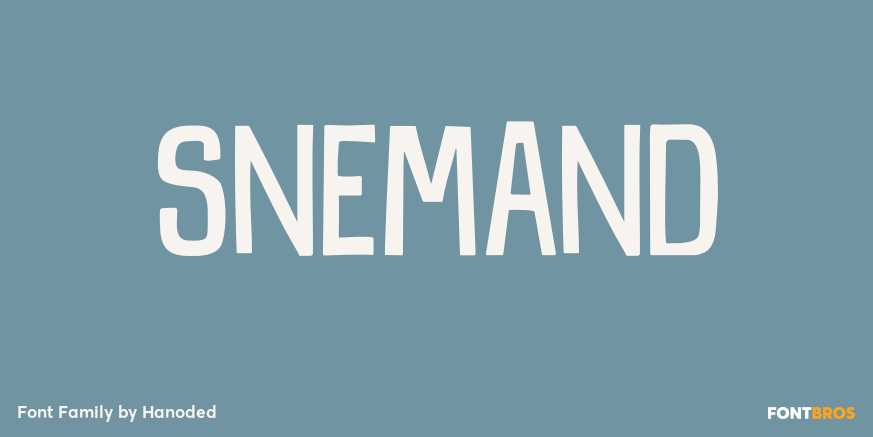
Snemand
About Snemand
Snemand, in Danish, means Snowman. Quite appropriate for the last month of the year! The font is all caps, but upper and lower case letters can be interchanged and it includes alternates for all lower case letters. Snemand is a very legible font and has…